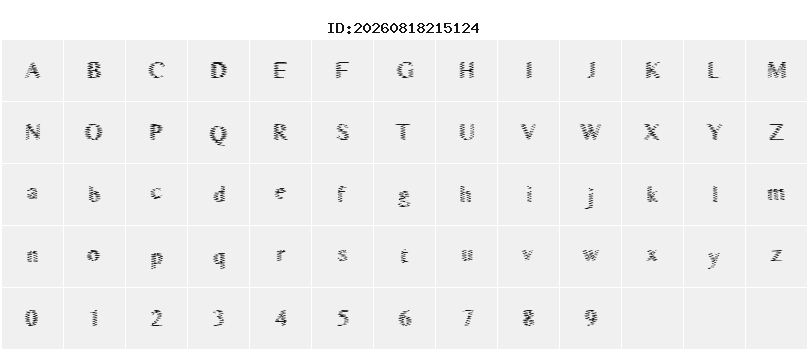
• Font Name: Singer
• Font Style: Sans
• Full Font Name: Singer Sans
About Singer.ttf
Singer.ttf is a modern, elegant sans-serif font designed for ultimate readability and visual harmony. Perfect for branding, headlines, web design, and print materials.